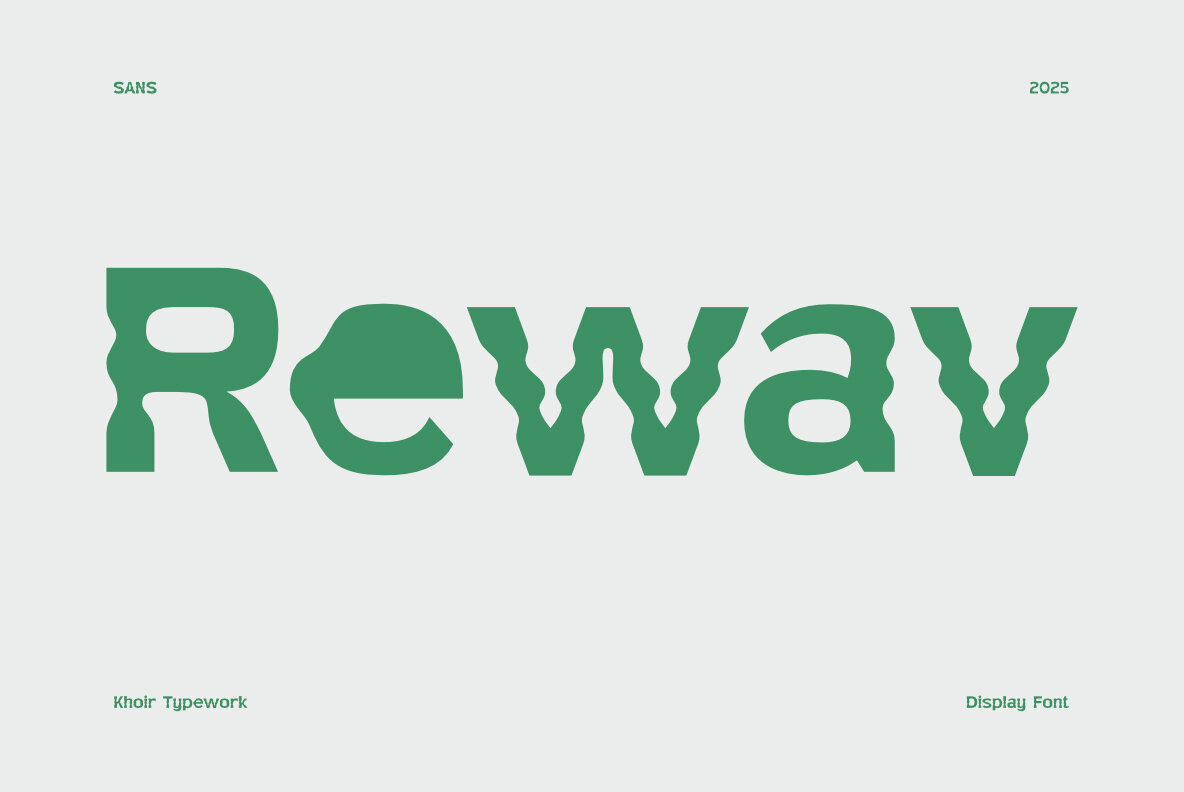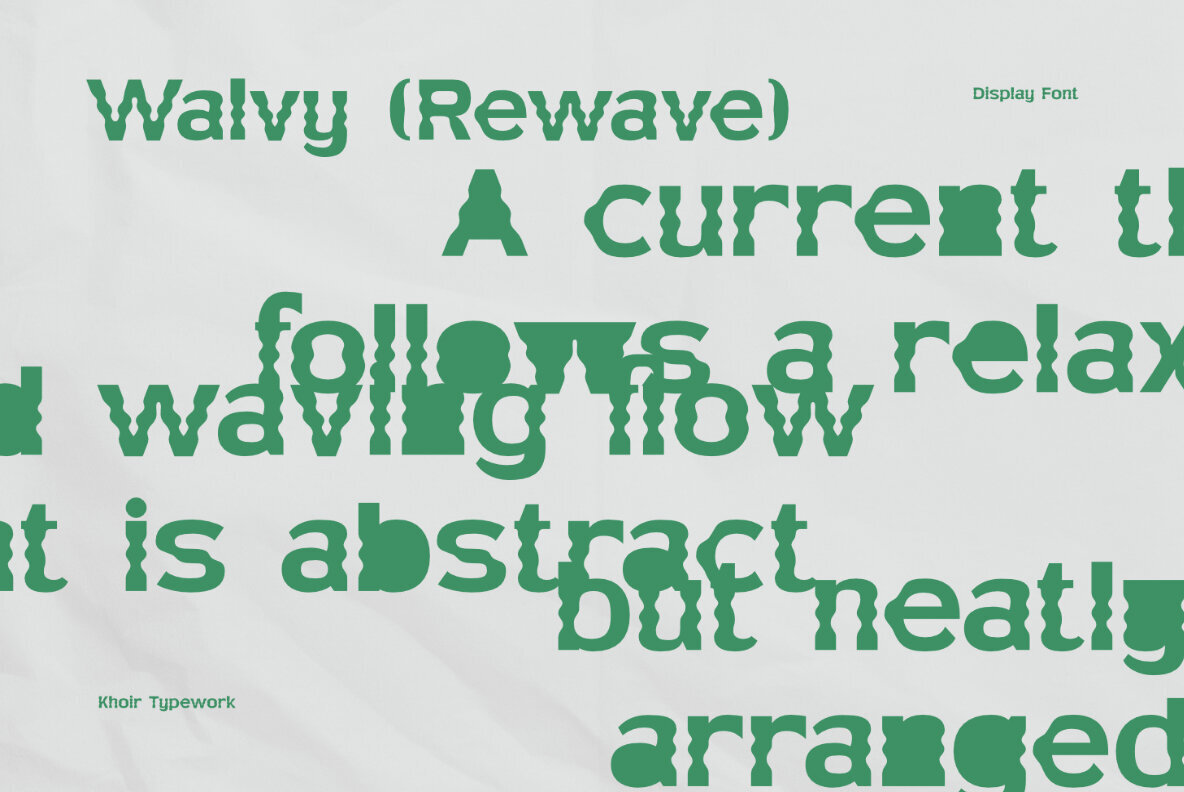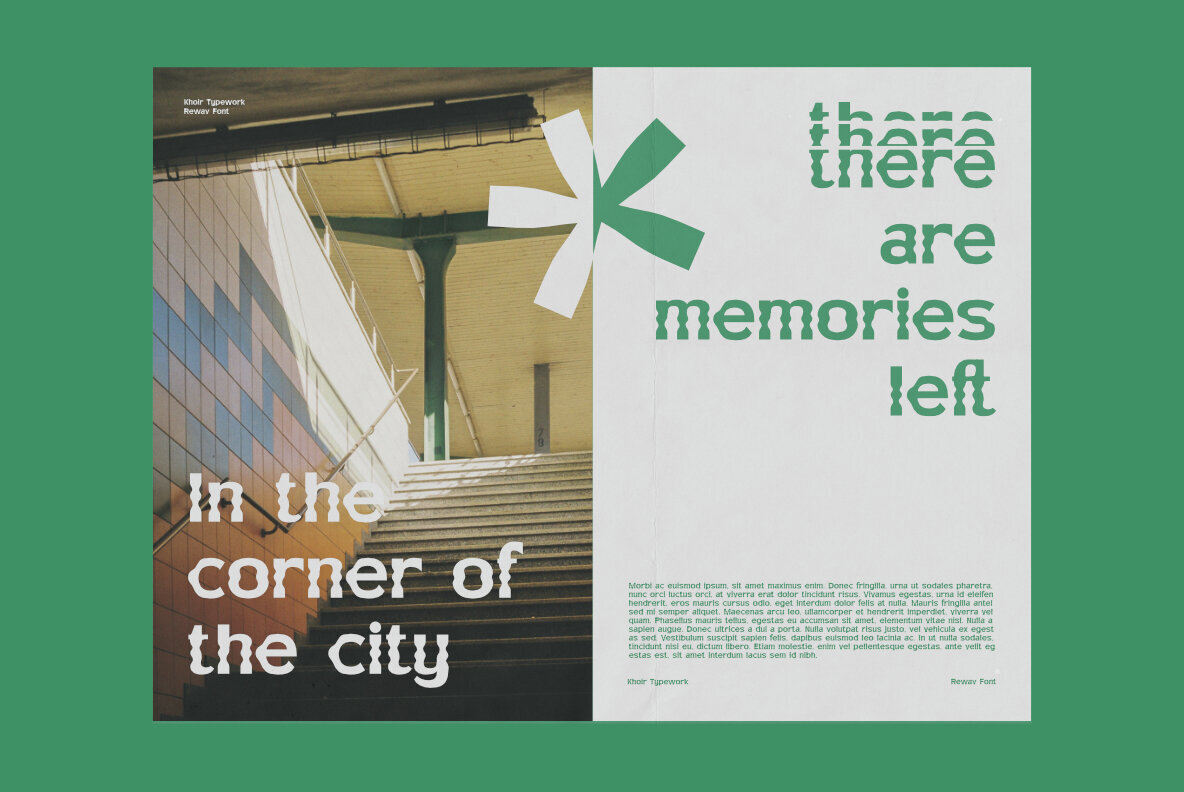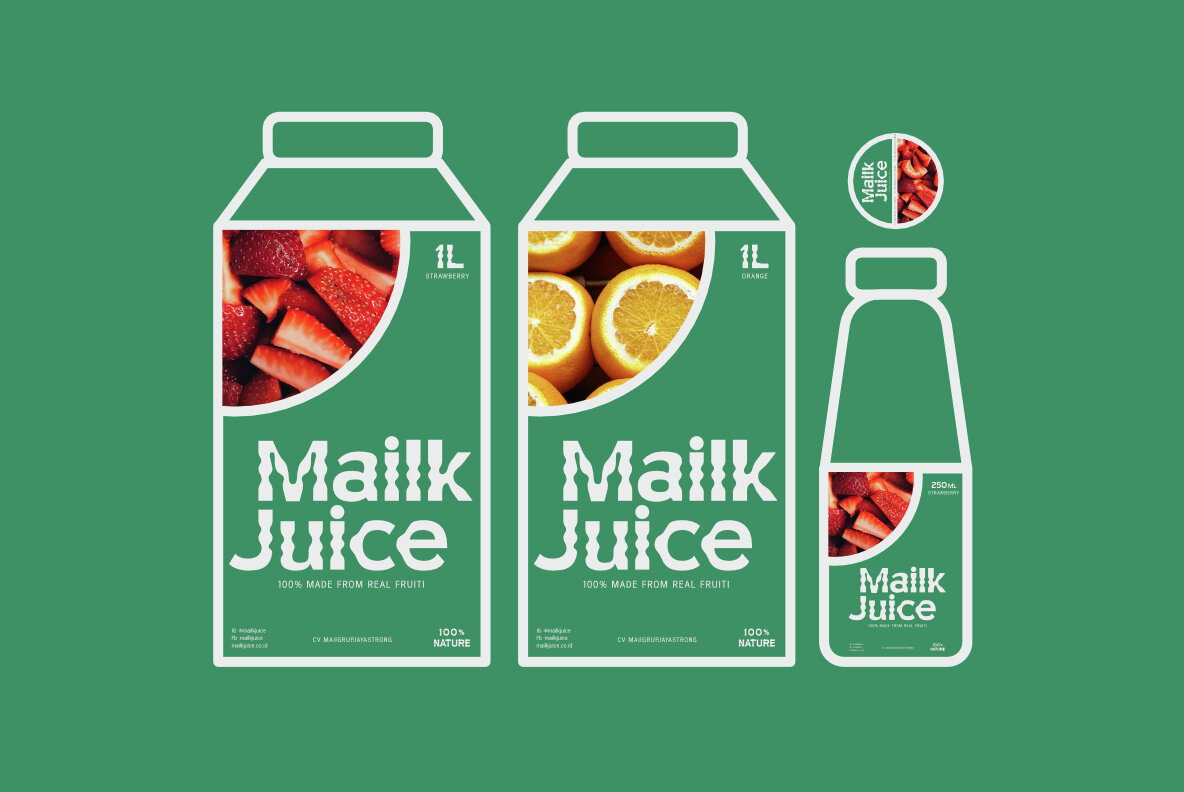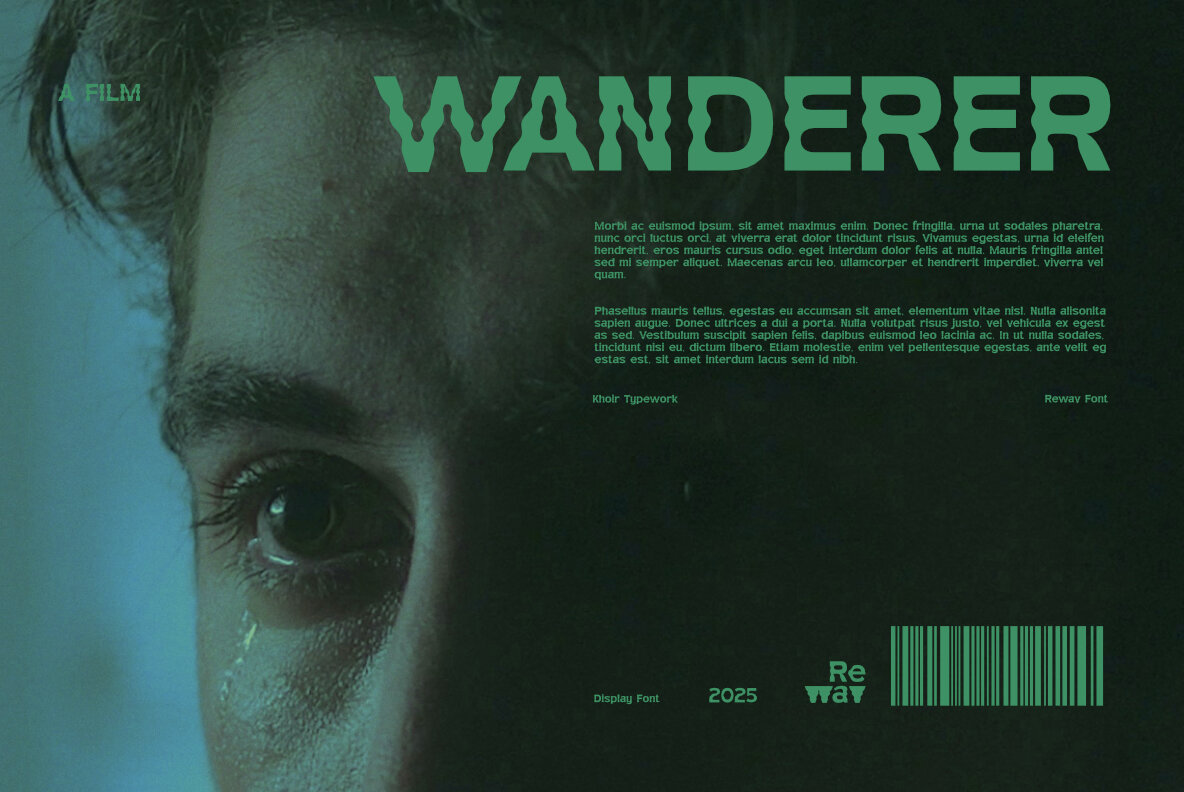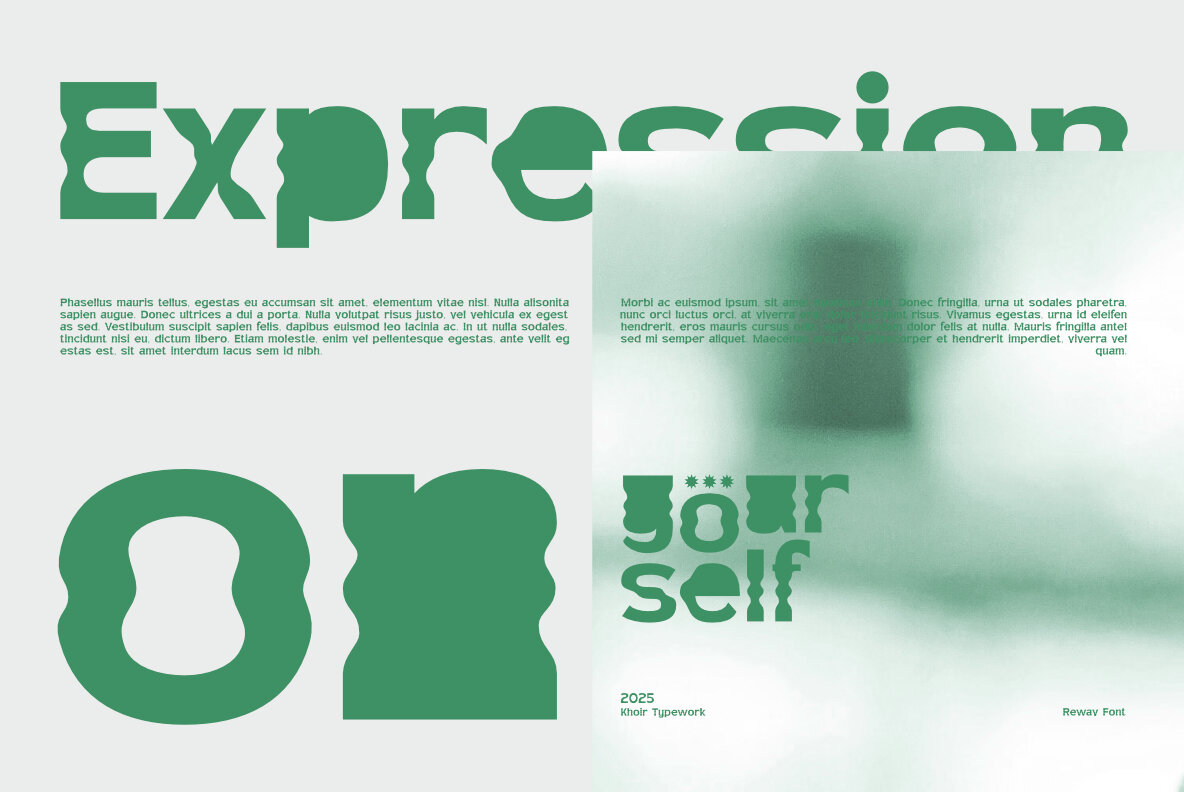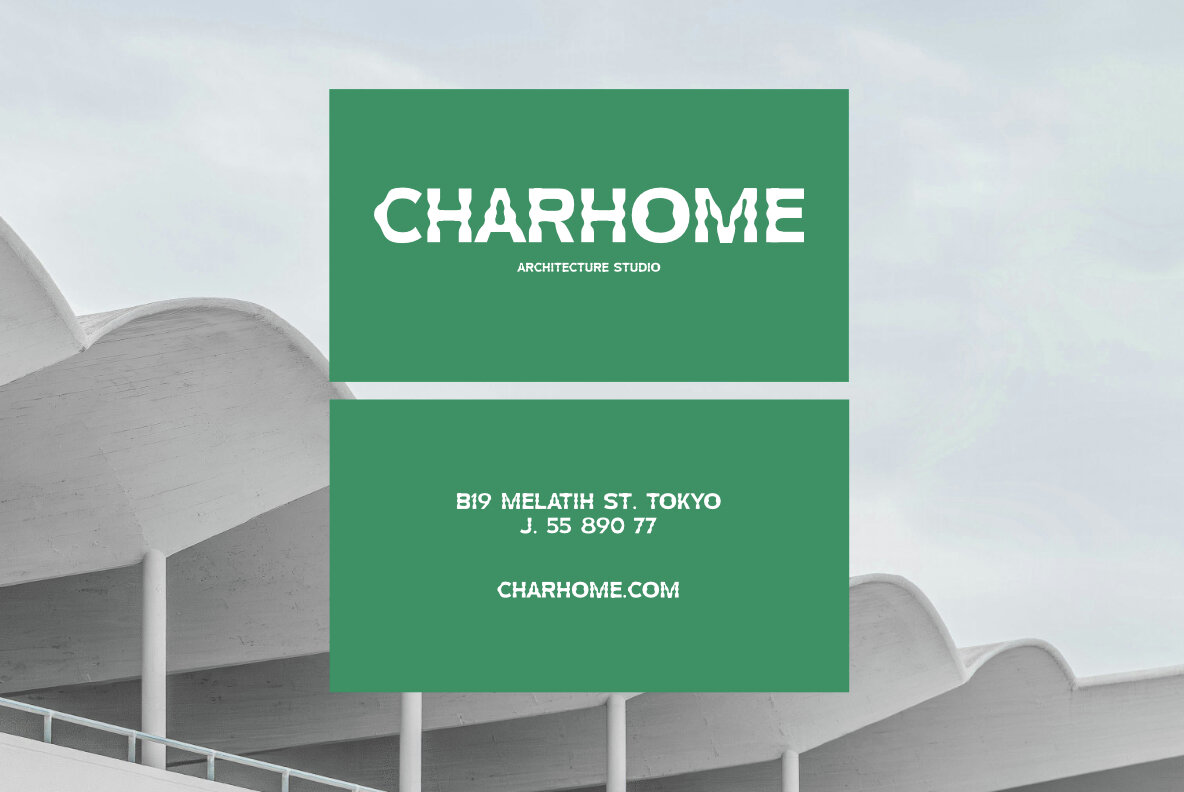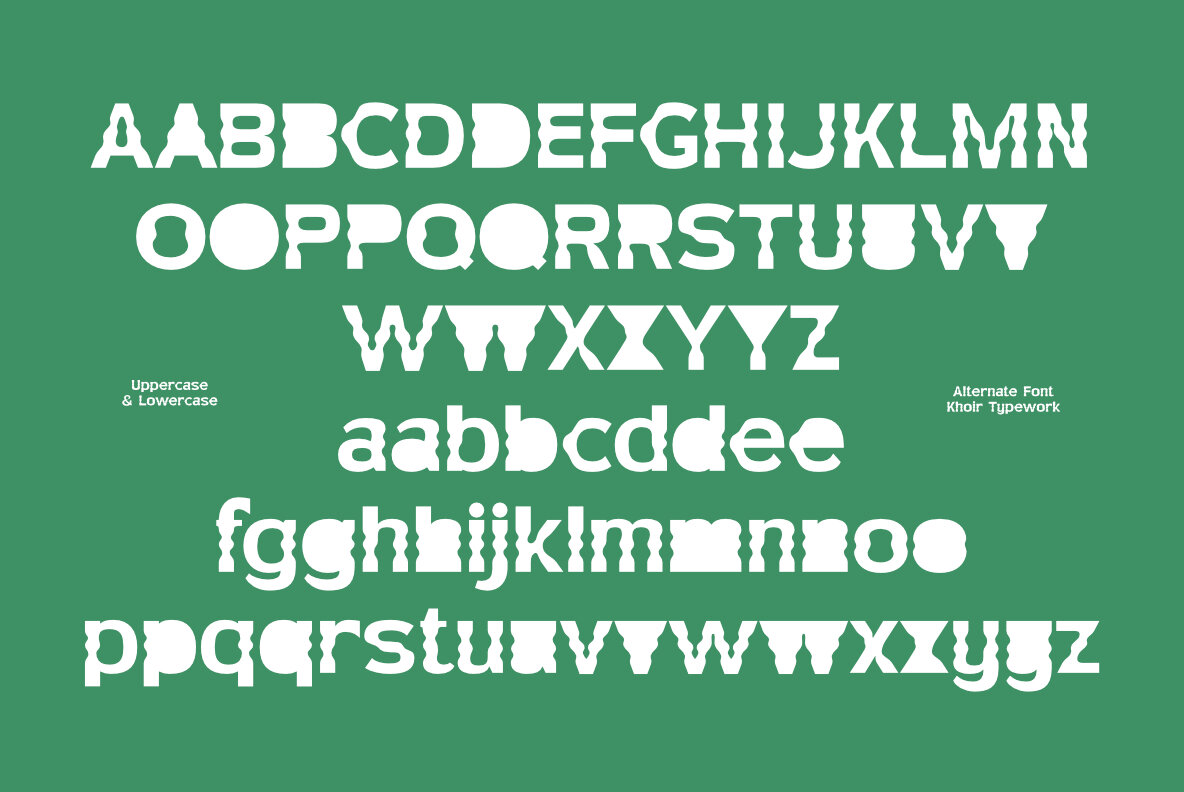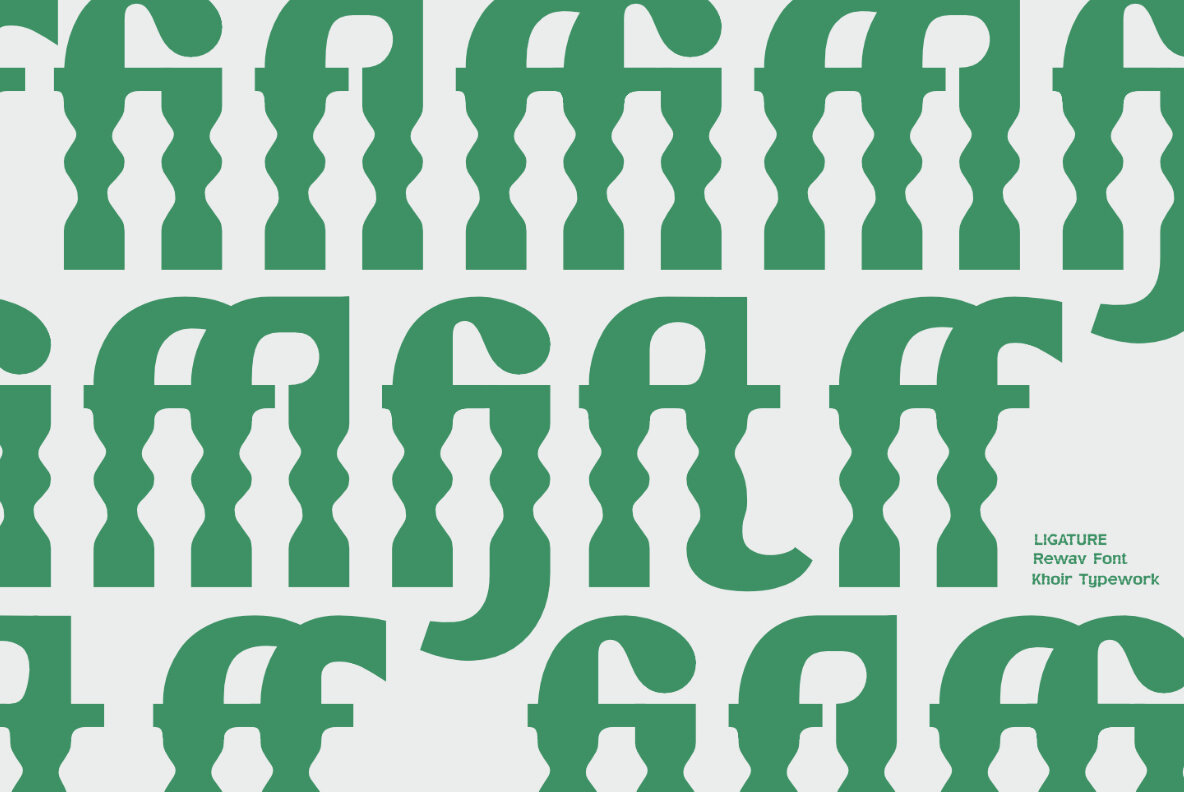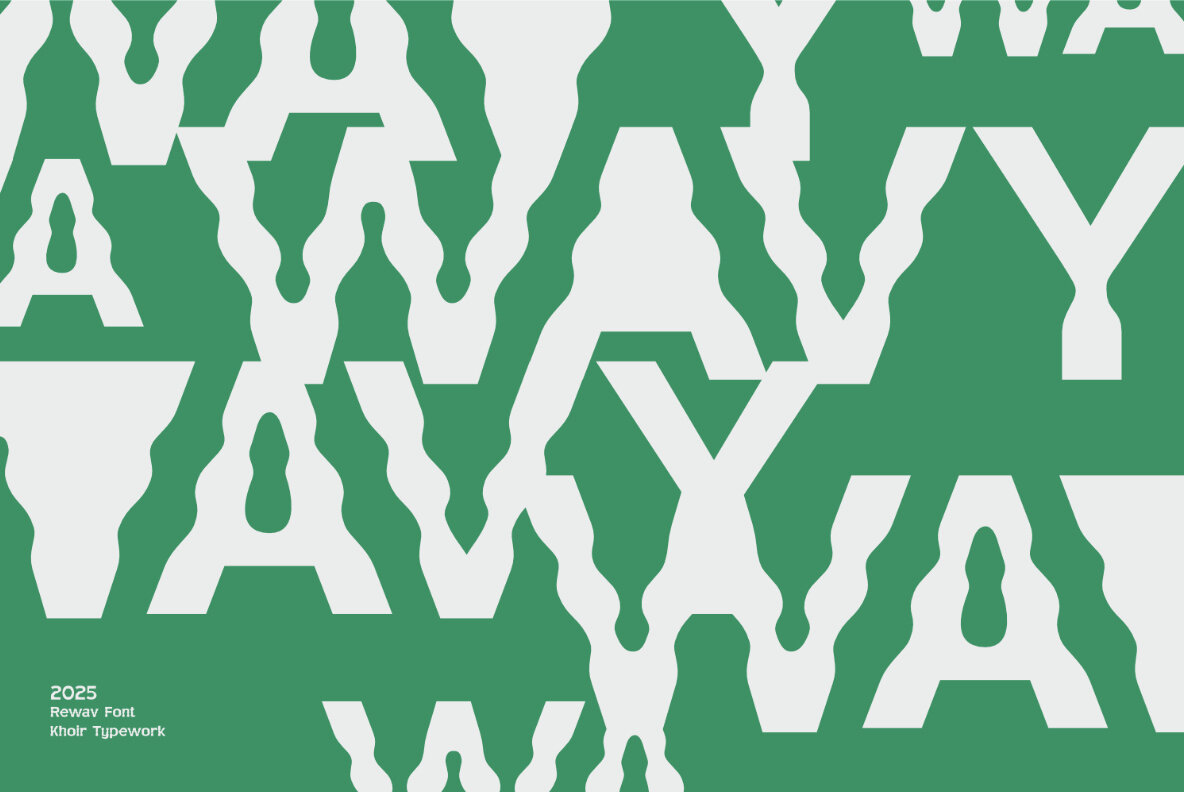
Rewav Font
Rewav Regular
Meet Rewav, the sans serif typeface that effortlessly combines simplicity and elegance. Its subtle curves distinguish it from other sans serif fonts, providing a unique touch to your design projects such as logos, posters, business cards, and movie covers. Rewav is designed for versatility, featuring uniform alternates and ligatures that simplify the design process while maintaining a polished look.Rewav: A Curvaceous Sans Serif Delight